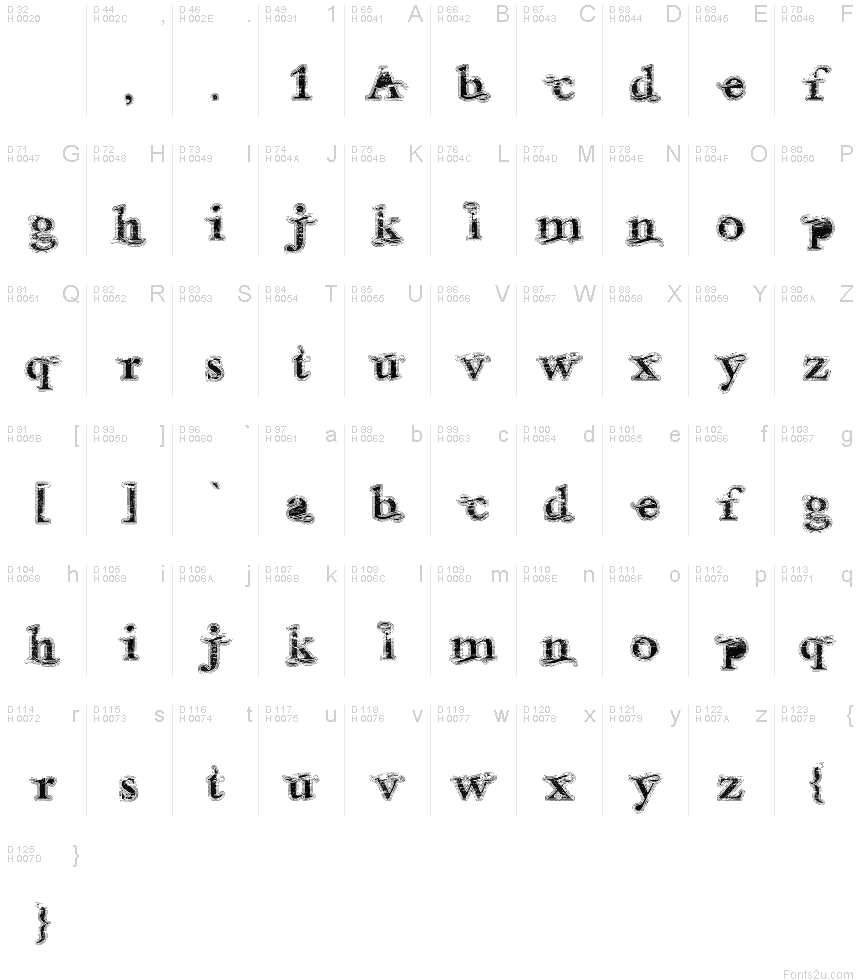
Andalusian from The Original 19 is a free distressed Western display font with broad, slab-like serifs and curling ornamental strokes. Multiple outlines trace the letters, and the dark interiors carry a rough, speckled texture. Rounded forms and looping flourishes give the design the look of hand-painted saloon signage.
Its frontier styling is well suited to posters for country music events and Western-themed entertainment. It also fits rustic food packaging and merchandise. The layered edges can echo engraved borders, rope patterns, or weathered wood illustrations, making the lettering part of a period-themed graphic rather than neutral text.